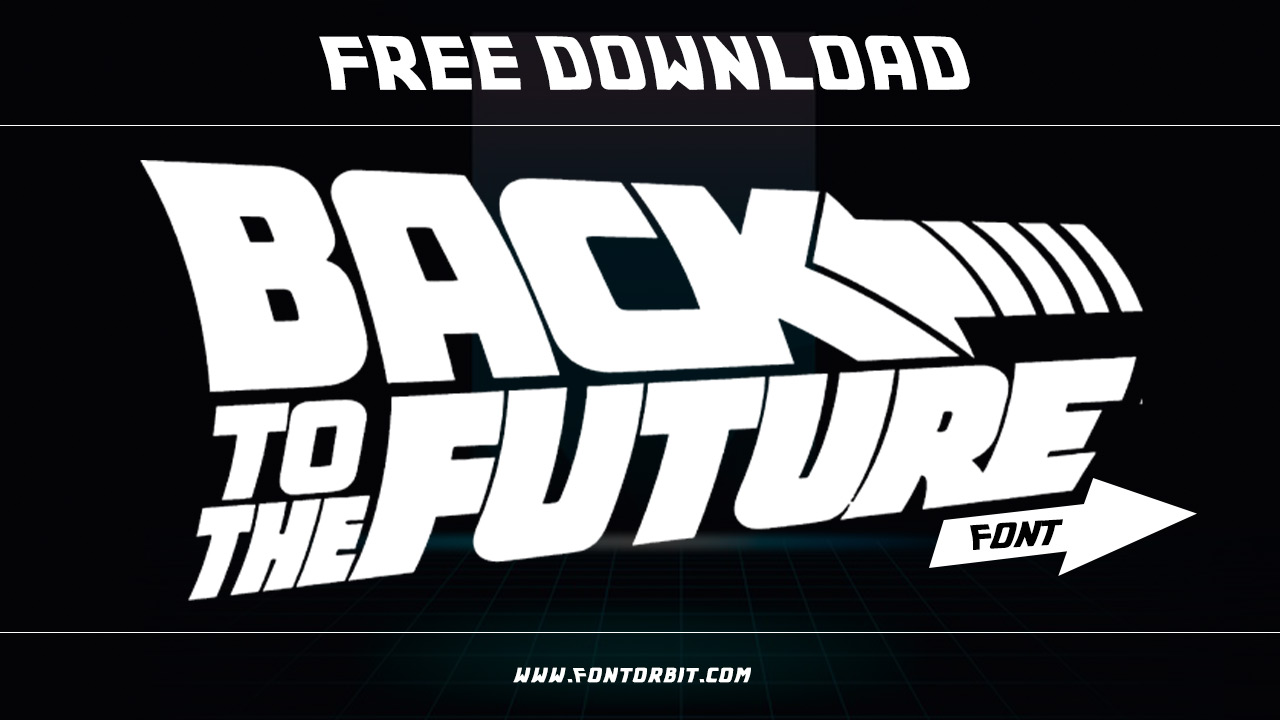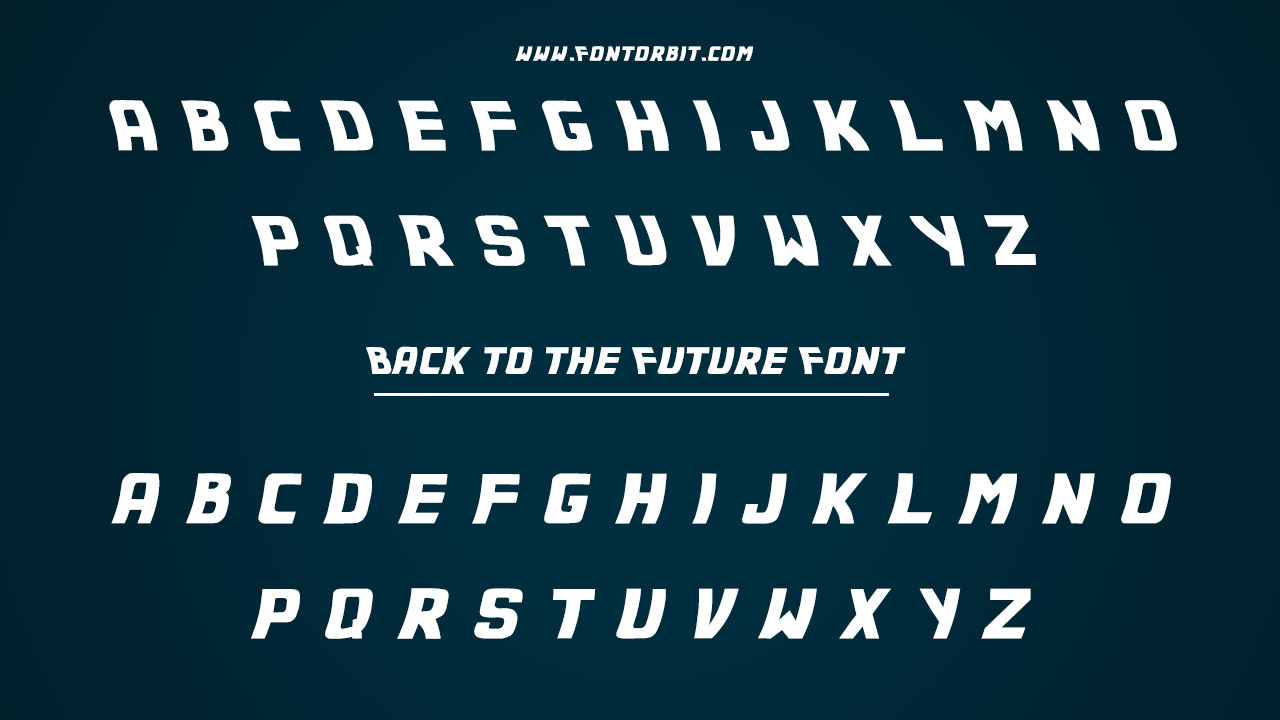
The Back to the Future font captures the bold, futuristic spirit of the 1980s. Whether you’re a designer working on a creative project or a fan looking to recreate the classic logo, this font brings a nostalgic yet modern appeal. Designed by Cyril Bourreau, the Future 2002 font closely resembles the lettering from the movie’s title, directed by Robert Zemeckis and starring Michael J. Fox.
This decorative font is a great choice for branding, posters, printed materials, and graphics. Featuring a single style, it falls under the category of modern fonts with a retro-futuristic edge. If you’re searching for similar fonts, there are various free fonts available that share the same sci-fi aesthetic.
Design & Features Of The Back To The Future Font
This font is recognized for its sharp angles, slanted typography, and dynamic perspective. It is often categorized among western fonts due to its bold and energetic appearance. The character map includes special characters, lower case letters, and numbers, making it versatile for multiple uses in text and logo designs.
Although the original movie logo was custom-made, the Future 2002 font provides a close alternative. It is available in a regular font style and works well with professional design tools like Adobe Illustrator, allowing customization such as colors, shadows, and perspective adjustments.
Best Uses For The Back To The Future Font
This typeface is ideal for:
- Logos and Branding – A perfect fit for futuristic or retro-themed identities.
- Posters and Printed Materials – Enhances text and graphics with a bold, eye-catching effect.
Designers working with a combination of handwritten fonts, typewriter fonts, or color fonts can add unique contrast and visual interest by pairing them with this font.
The Back to the Future font is a decorative, futuristic typeface that brings the 1980s sci-fi aesthetic into modern design. With a variety of similar fonts available, designers can experiment with different perspectives, colors, and styles to create the perfect retro-futuristic look.
If you’re looking to recreate the Back to the Future title or add a little bit of nostalgia to your design, this font is the perfect choice for achieving that classic, time-traveling aesthetic.
1.What Font Was Used In Back To The Future?
The original lettering was custom-designed, but the Future 2002 font by Cyril Bourreau closely replicates it.